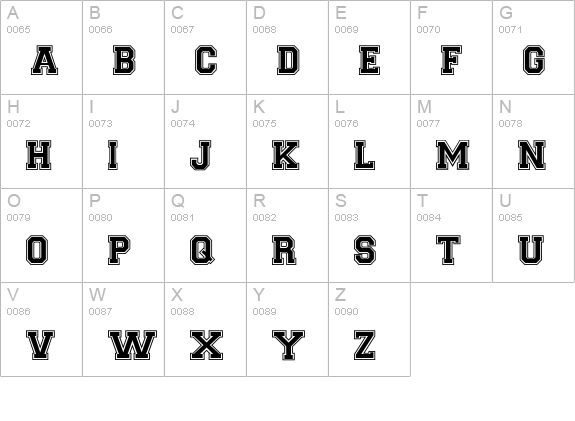
CollegiateHeavyOutline Medium is a balanced, medium-weight variant in the CollegiateHeavyOutline typeface family \xE2\x80\x94 well suited to sub-headlines, navigation, and balanced editorial work.
CollegiateHeavyOutline Medium font is a bold and striking typeface that exudes confidence and professionalism. Its heavy outline design adds a touch of uniqueness and visual impact to any project. Whether you're designing a sports logo, creating eye-catching headlines, or crafting strong and impactful titles, this font is sure to make a lasting impression. With its clean and smooth lines, CollegiateHeavyOutline Medium font is highly readable even at smaller sizes, making it perfect for both print and digital applications. It is a versatile typeface that can be used in various design projects, including posters, banners, flyers, and websites. One of the best things about CollegiateHeavyOutline Medium font is that it is freely available to download at FontsMarket.com. This means that you can easily access this amazing font without any cost or restrictions. Whether you're a professional designer or a hobbyist, having access to high-quality fonts like CollegiateHeavyOutline Medium font can greatly enhance your creative endeavors. So why wait? Download CollegiateHeavyOutline Medium font today from FontsMarket.com and elevate your design projects to new heights. With its bold and impactful design, this font is sure to grab attention and make a lasting impression. Whether you're working on a personal project or a professional assignment, CollegiateHeavyOutline Medium font is a must-have addition to your font library.